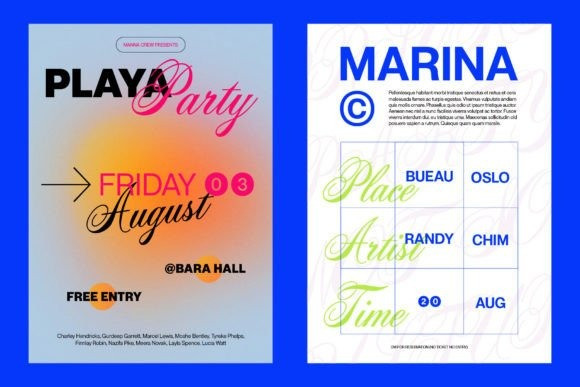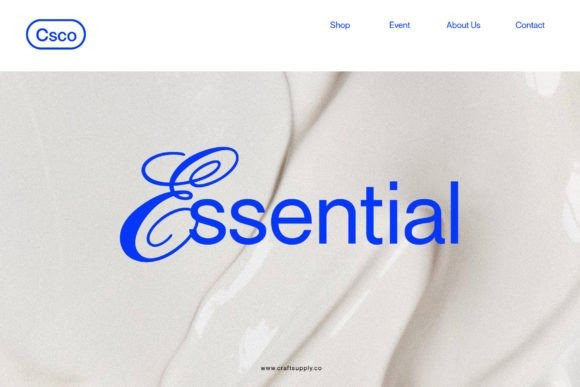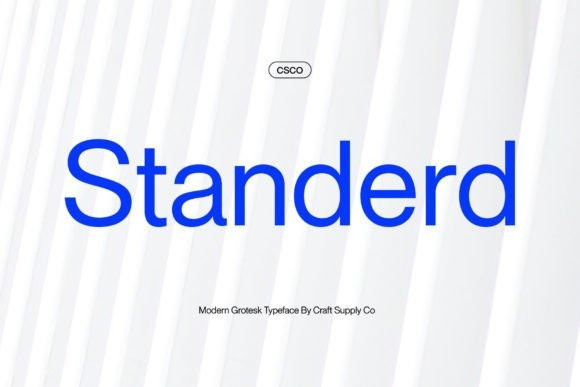
Standerd Font
Standerd Font is a cool and modern sans serif font. Its casual charm makes it appear wonderfully down-to-earth, readable, and, ultimately, incredibly versatile. This will look outstanding in any context, whether it’s being used on busy backgrounds or as a standalone headline!